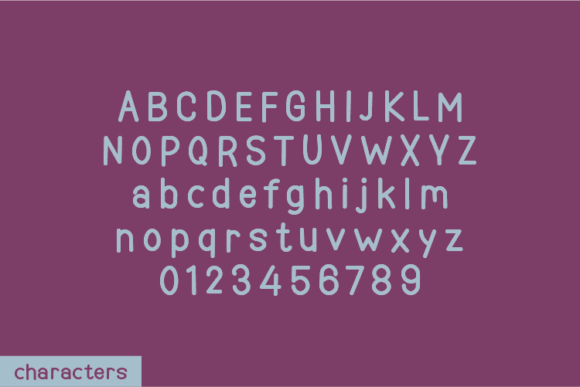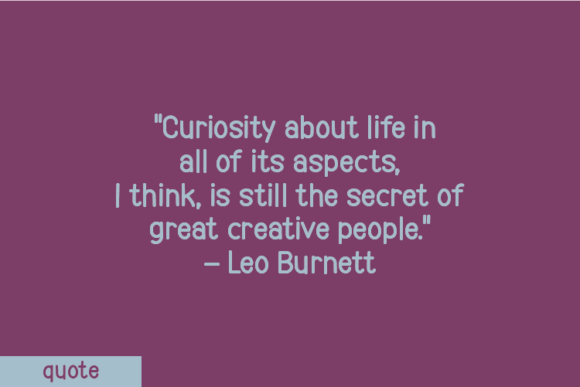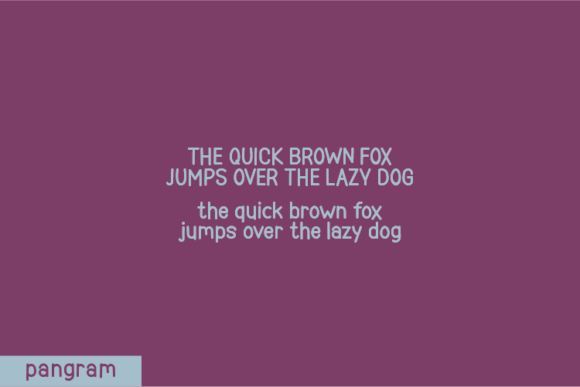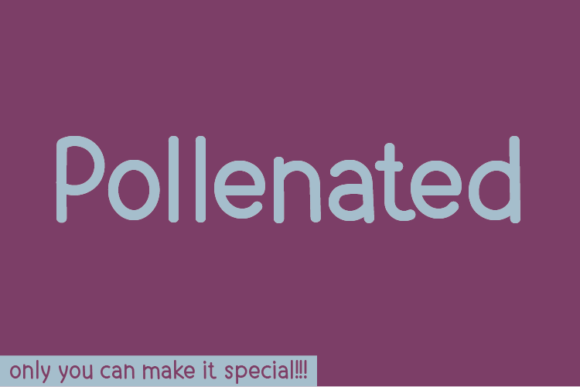
Introduction to Pollenated Font
Pollenated is a natural handwritten font without changing a single node in each character’s indentation, this makes this font very interesting and unique.
Perfect for quotes, notes, tees, and any product design .
Key Features of Pollenated Font